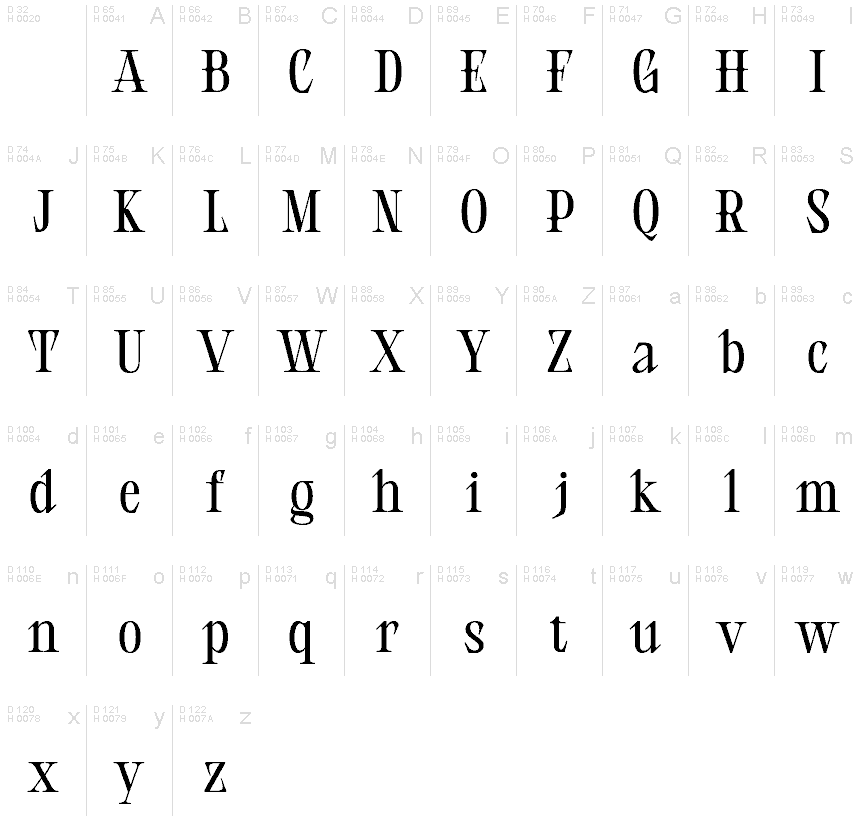
CS Freya Regular Demo
CS Freya font by Craft Supply Co. is an elegant condensed serif font with sophisticated letters shaped like geometric sculptures. The first thing you notice about the font is its thin lines and unpretentious appearance. Its impeccably simple yet traditional design makes it suitable for use in almost any kind of project without breaking harmony with other graphic elements.
This versatile serif typeface can be used in blogging, stickers, branding ideas, logotypes, cards, headings, magazines, copies, websites posters invitations even books and other long texts! Since this free font aims to be expressive through details rather than exaggeration; what better way to convey professionalism and seriousness?